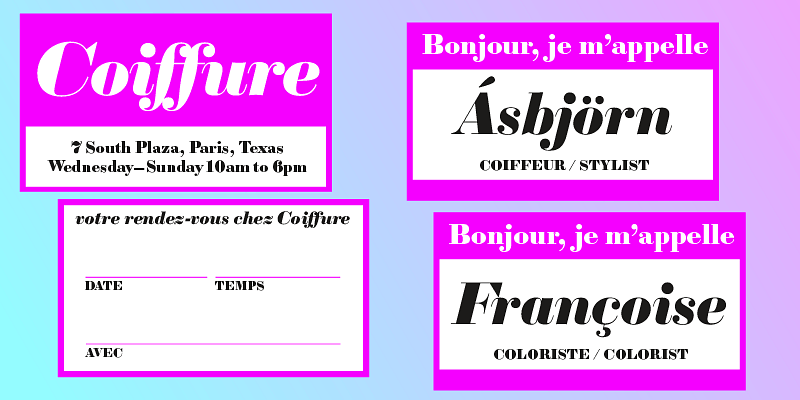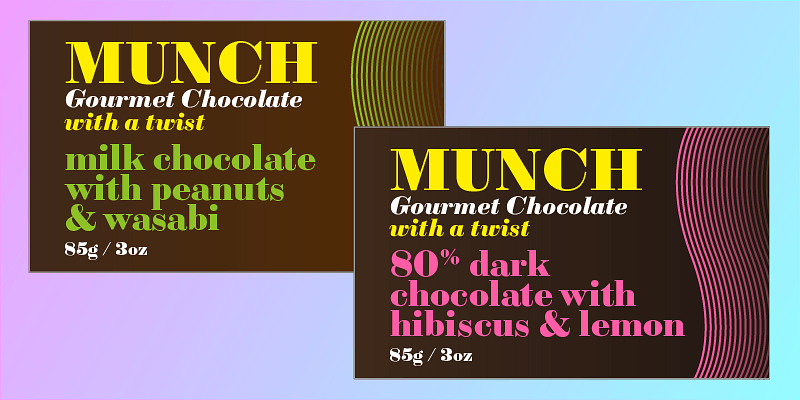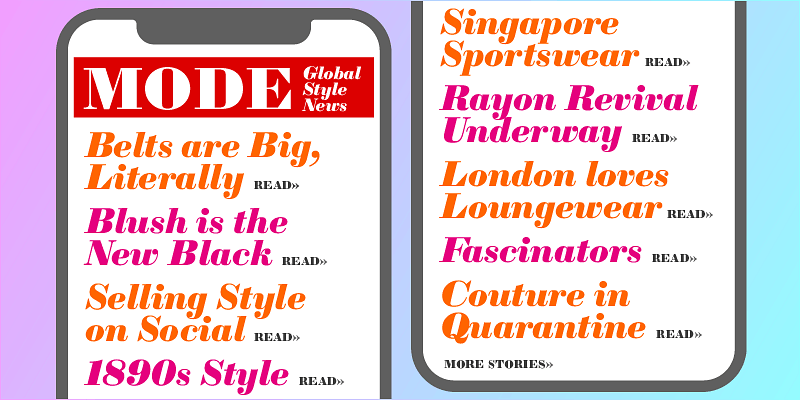
Striking contrast and exquisite curves make Sybarite a powerful tool for attracting attention. The key to a fat face is dramatic contrast between thick and thin strokes that turns letters into arresting silhouettes. Most fat face fonts were drawn to be used at one size, causing thin strokes to disappear at small sizes and thicken at large sizes. But Sybarite’s four optical weights provide striking contrast at any size.
Adept draughtsmanship makes Sybarite as exquisite as it is striking. Every ample stroke, graceful curve, and pointed serif received careful attention. Alternate versions of a, F, R, and T prevent gaps caused by white space in traditional fat faces. Italic fonts have a steep slant, sweeping pothook serifs, and seven alternate swash capitals. Contrast and craft make Sybarite stand out in headlines, covers, posters and packages.